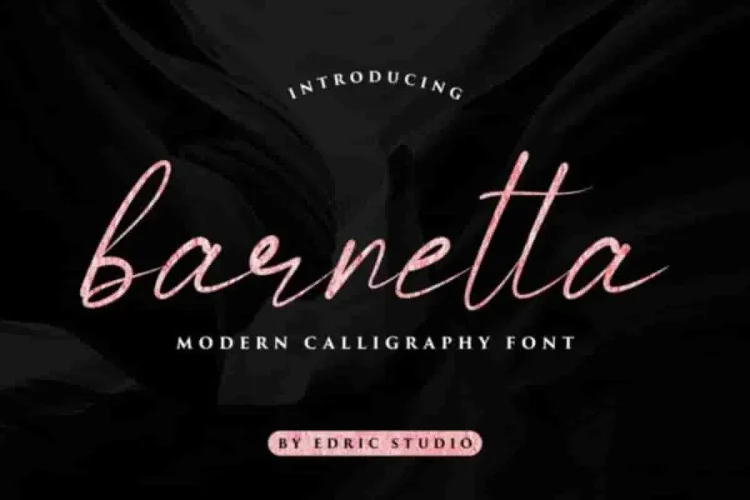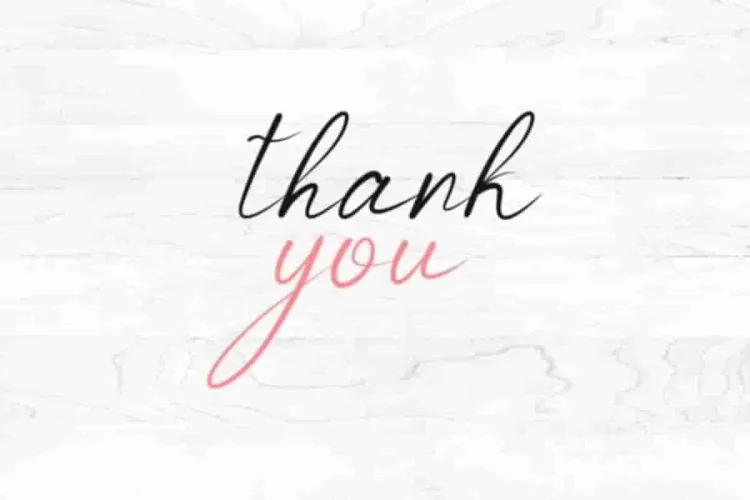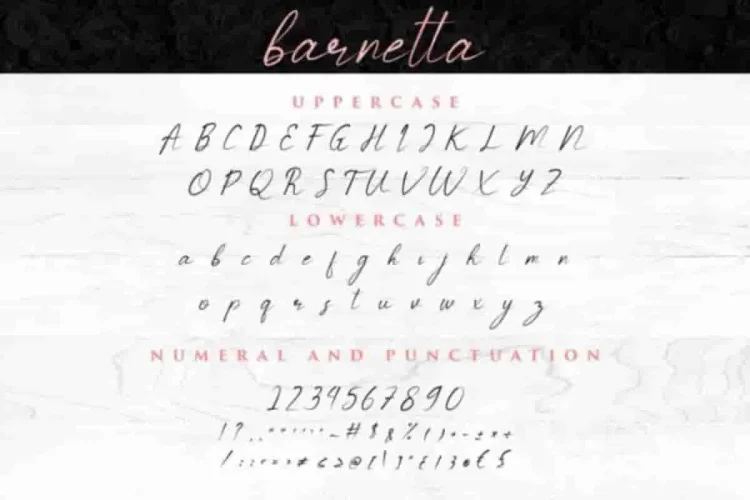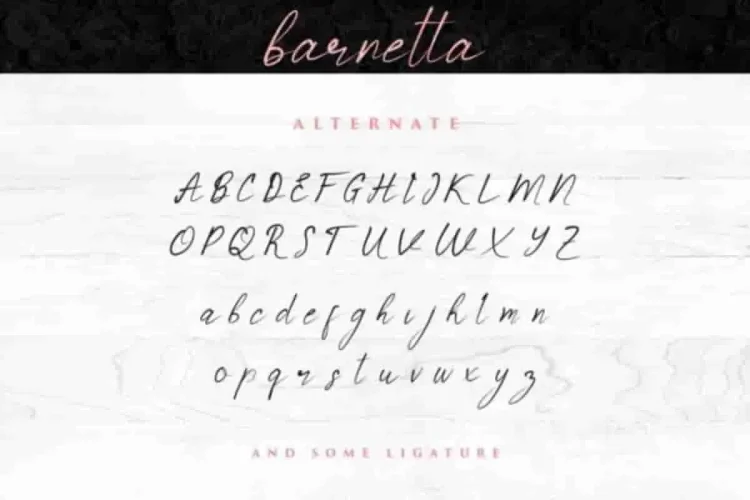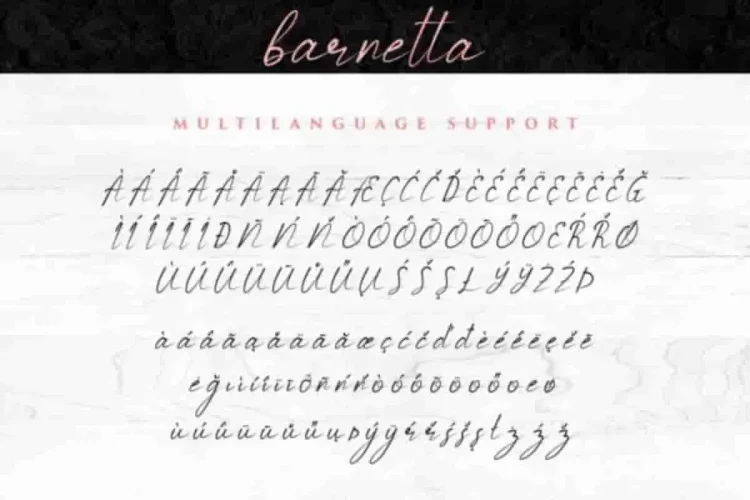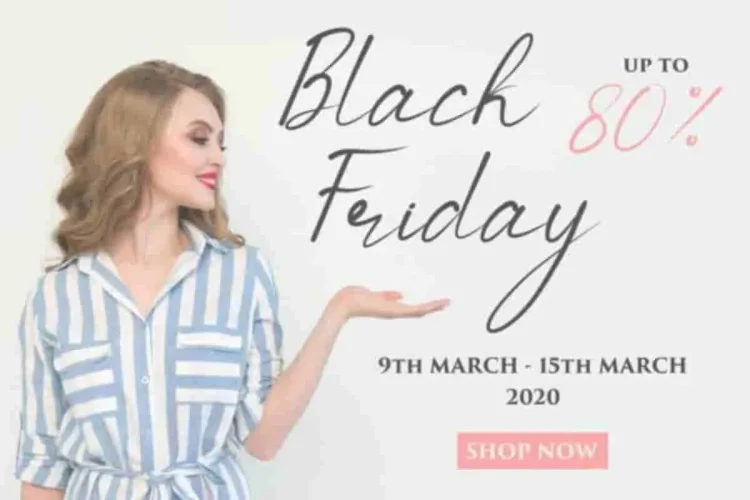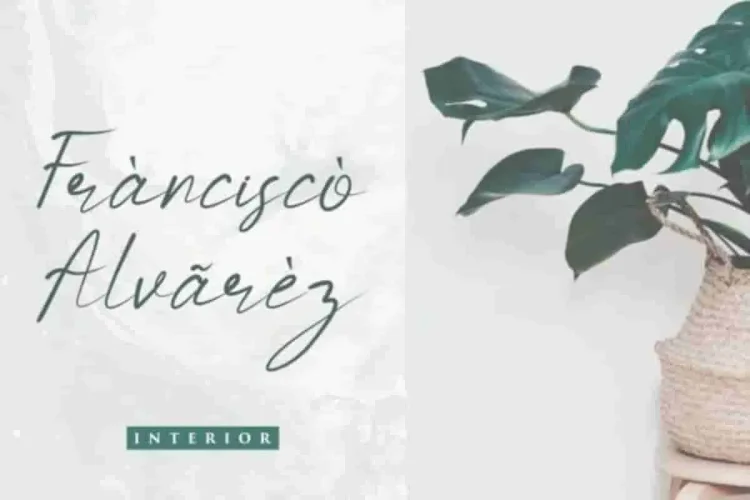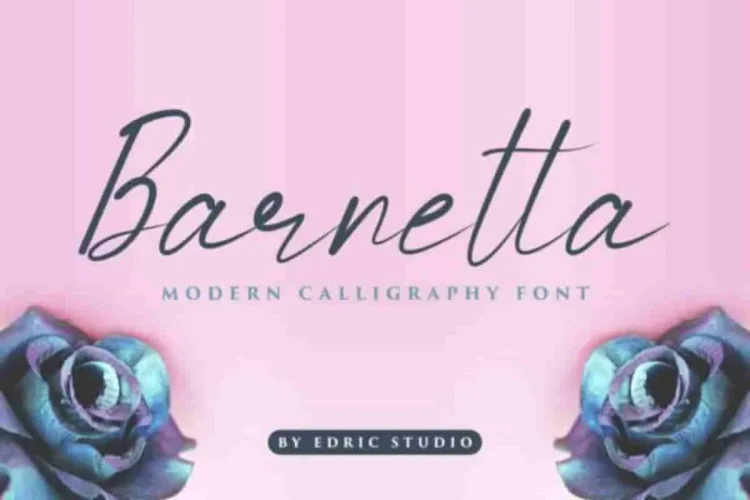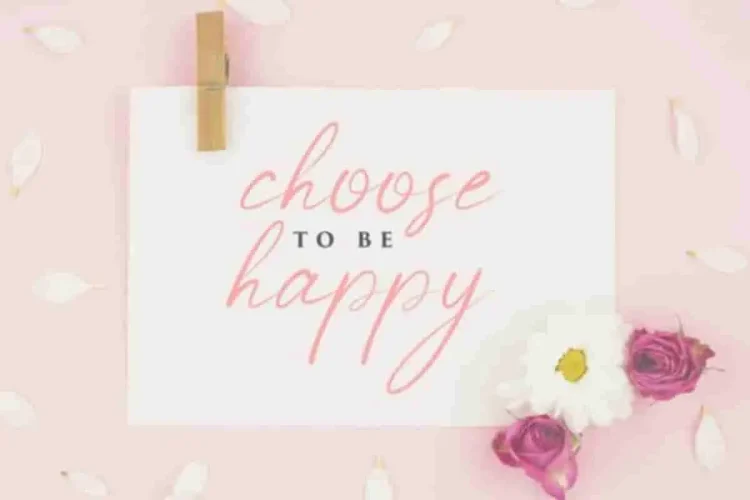
Barnetta Calligraphy Font
Introducing Barnetta Calligraphy Font
This is our latest font in 2020, Barnetta Calligraphy Font is a handmade font with brush ink look glyphs.
Barnetta Calligraphy Font is a new decorative font with calligraphy style. It has unique glyhps set that is the elegant, stylish yet elegant pen brush style.
Barnetta Calligraphy Font has some alternatives characters, so you will get even more options for your creative creations.
It will be awesome for branding, logotype, stationery, business card, signage, flyer, brochure etc.